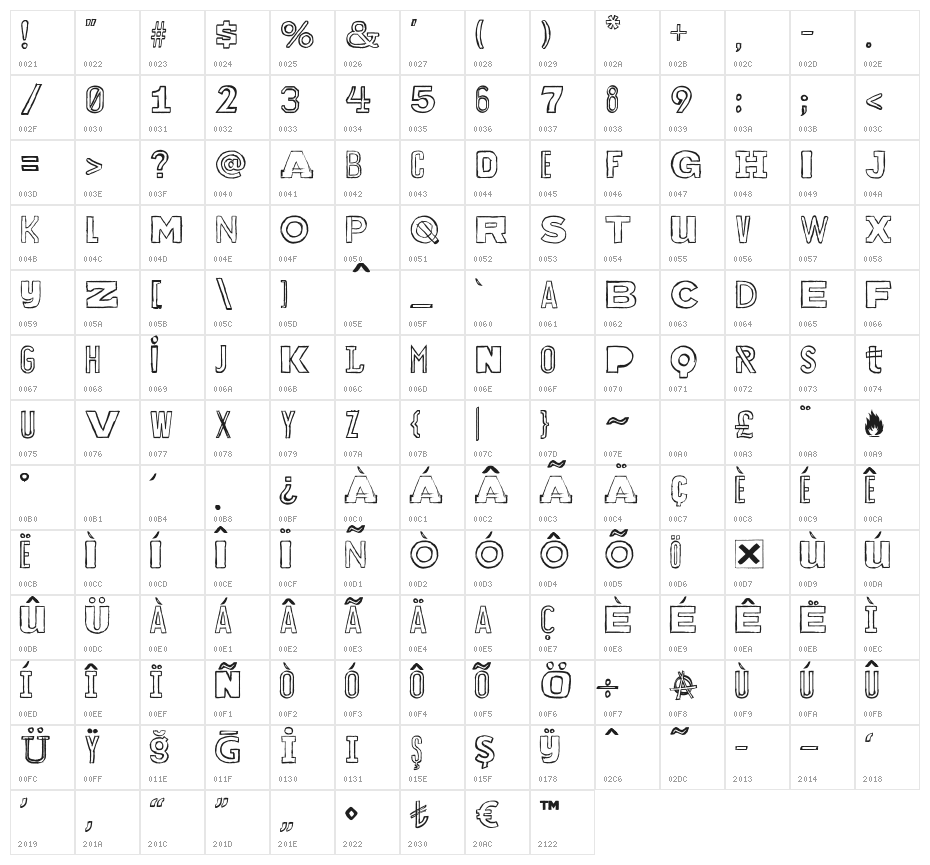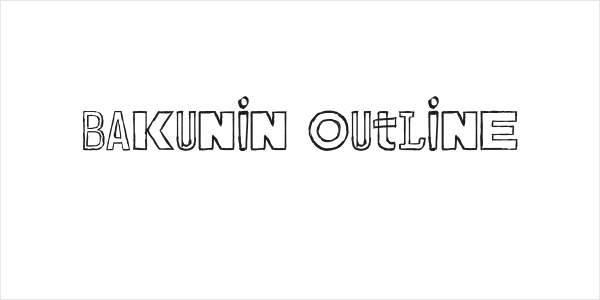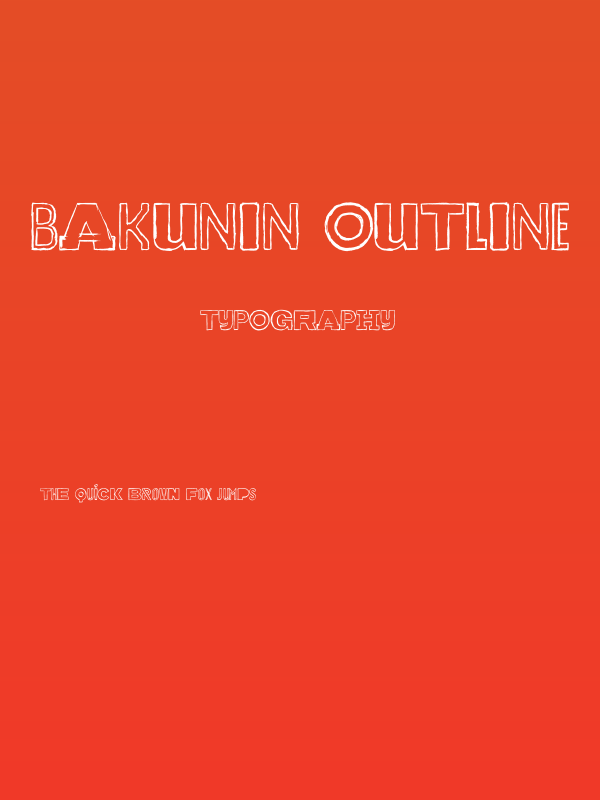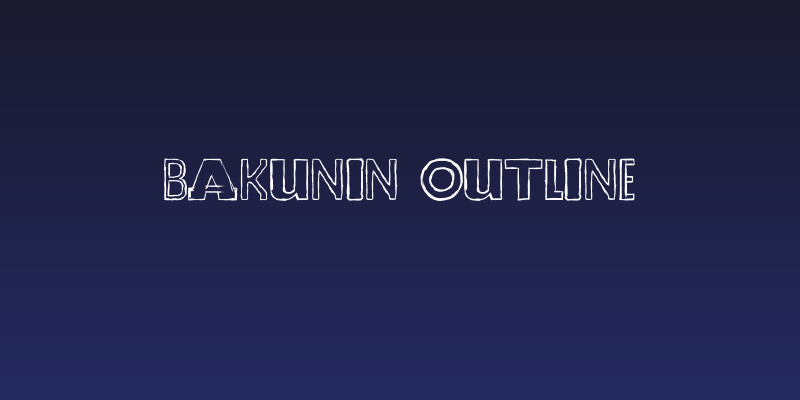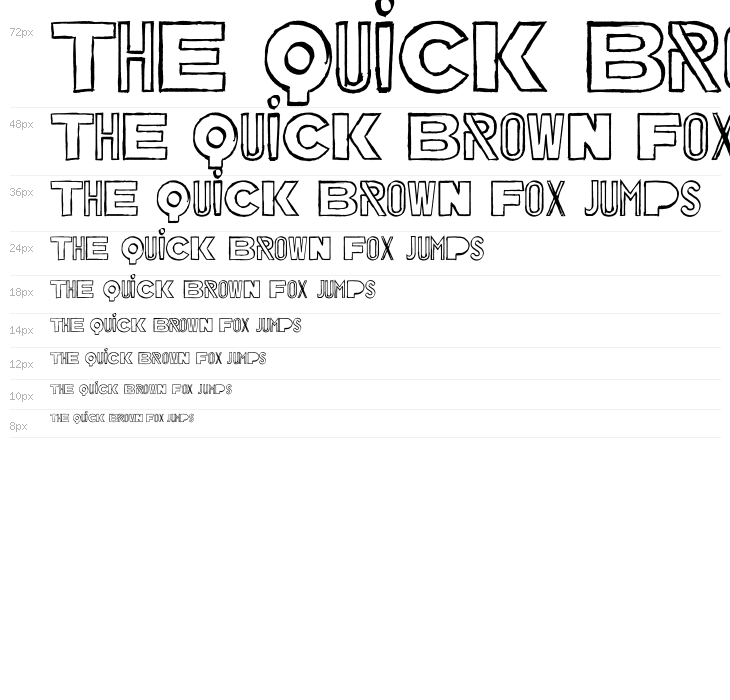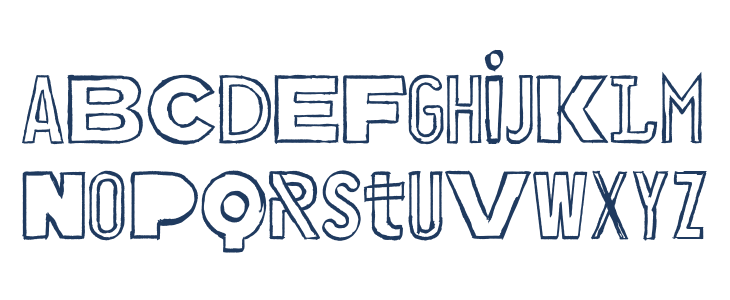
Bakunin Outline Font
Bakunin Outline Description
This font features a bold, outlined style that gives it a distinctive and eye-catching appearance. The characters are uppercase and lowercase letters, along with numbers and special symbols, all designed with a hand-drawn, sketch-like quality. The outlines are thick and irregular, adding a playful and artistic touch. The font's unique style makes it suitable for creative and informal projects, where a sense of individuality and flair is desired. The characters have a consistent width, and the spacing between them is normal, ensuring readability while maintaining its artistic charm.